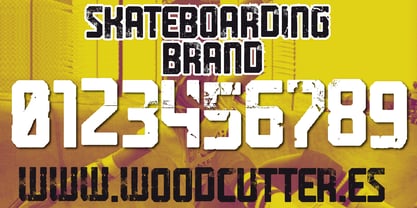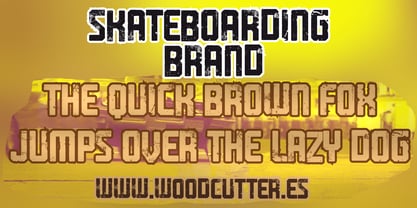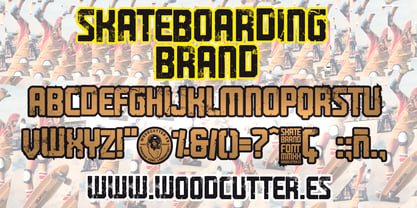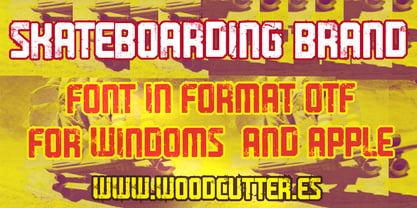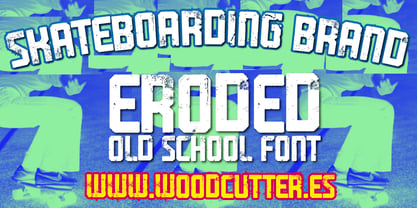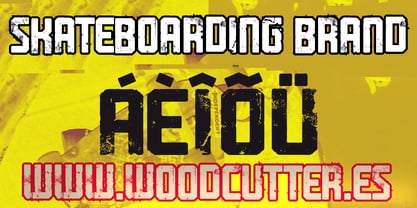
Skateboarding Brand
by Woodcutter
The Skateboarding Brand Font Family was designed by Jordi Manero and published by Woodcutter. Skateboarding Brand contains 1 styles. More about this family
Skateboarding Brand is an uppercase typeface with accents, in an eroded style that fuses aggressive urban design with a subtle techno edge. Each letter appears slightly worn, as if it had endured countless skate sessions on rough pavement, leaving behind visible scars that amplify its strength. The design is bold, solid, and geometric, making it perfect for urban brand logos, streetwear designs, posters, stickers, or underground zine covers. The eroded texture gives it a sense of authenticity and real-life grit, as though the letters were weathered by asphalt, paint, and time. Despite its rough appearance, the structure remains clean and highly legible, even at smaller sizes. It carries a rebellious and modern energy, ideal for designers seeking a raw yet controlled style, with nods to the skater, punk, and techno subcultures. Skateboarding Brand is more than just a font — it’s a visual statement that conveys attitude, resilience, and urban culture. Its strong yet flexible presence makes it a standout choice for any design surface.
Designers: Jordi Manero
Foundry: Woodcutter